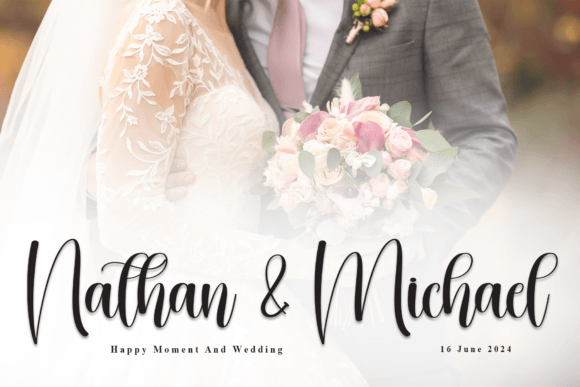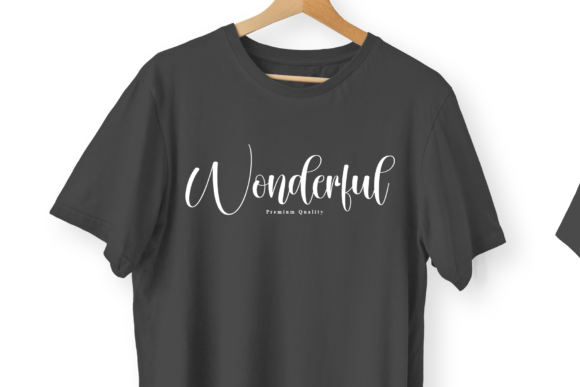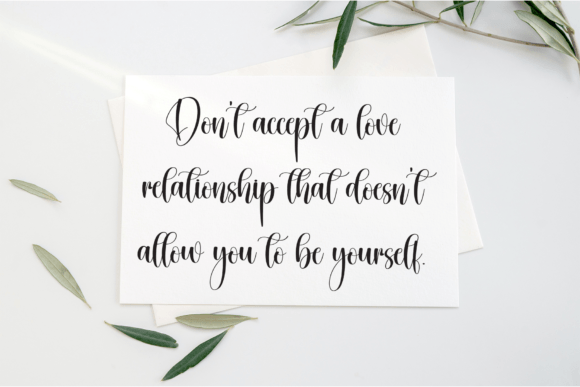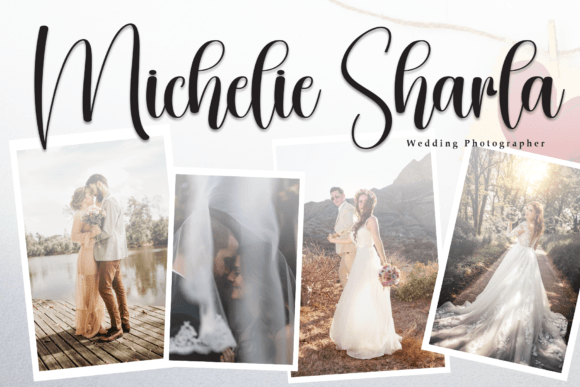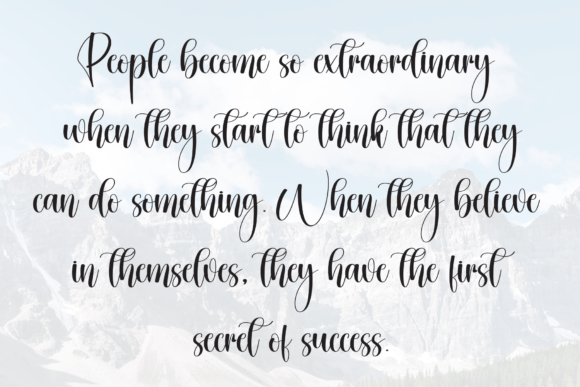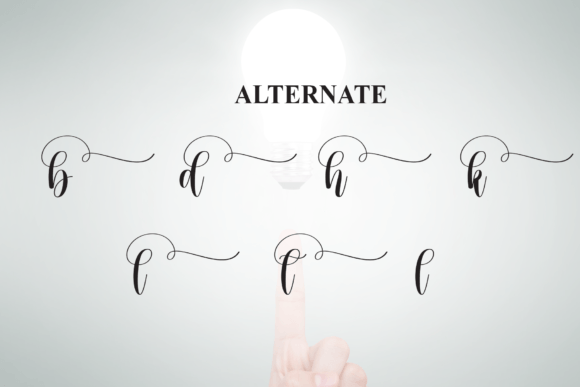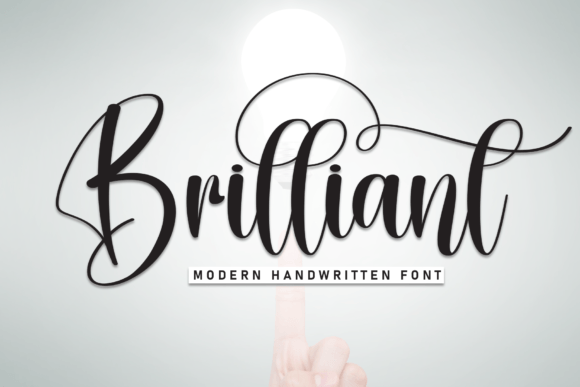
Discover the Charm of Brilliant Font: A Sweet and Friendly Handwritten Delight
Are you on the hunt for a font that adds a touch of warmth and personality to your designs? Look no further than Brilliant Font, a sweet and friendly handwritten font that’s sure to capture your heart. With its natural and unique style, Brilliant Font is incredibly versatile and can be used in a wide range of designs, from rustic and vintage to modern and playful.
Handwritten fonts have a way of adding a personal touch to any design. They evoke a sense of warmth, comfort, and approachability, making them perfect for designs that aim to connect with the audience on a more personal level. Brilliant Font is no exception, with its fluid and organic strokes that give it a distinctly human feel.
What Makes Brilliant Font So Special?
So, what sets Brilliant Font apart from other handwritten fonts out there? Here are just a few of its standout features:
• Natural and Unique Style: Brilliant Font has a one-of-a-kind look that’s both natural and effortless. Its unique style makes it perfect for designs that need a touch of personality and whimsy.
• Versatility: Whether you’re designing a rustic wedding invitation, a playful children’s book, or a modern brand logo, Brilliant Font is up to the task. Its versatility knows no bounds, and the only limit is your imagination!
• Easy to Read: Despite its whimsical nature, Brilliant Font is surprisingly easy to read, making it perfect for body text and longer blocks of content.
So, what can you create with Brilliant Font? The possibilities are endless! Here are a few ideas to get you started:
• Wedding Invitations: Add a touch of romance and whimsy to your wedding invitations with Brilliant Font. Its elegant and flowing strokes make it perfect for formal and informal wedding designs alike.
• Children’s Books: Brilliant Font is a natural fit for children’s books, with its playful and imaginative vibe. Use it to create engaging and interactive stories that kids will love.
• Branding and Logos: Need a logo that stands out from the crowd? Brilliant Font is a great choice, with its unique and memorable style. Use it to create a brand identity that’s both modern and timeless.
• Stationery and Crafts: Brilliant Font is perfect for crafty projects like DIY stationery, journals, and planners. Add a personal touch to your crafts with this beautiful handwritten font.
Tips for Using Brilliant Font
Here are a few tips to help you get the most out of Brilliant Font:
• Experiment with Colors: Brilliant Font looks great in a variety of colors, from bright and bold to soft and pastel. Experiment with different color combinations to find the perfect fit for your design.
• Play with Pairings: Brilliant Font pairs well with a range of other fonts, from modern sans-serifs to elegant scripts. Experiment with different pairings to find the perfect match for your design.
• Don’t Be Afraid to Get Creative: Brilliant Font is a versatile font that can be used in a wide range of designs. Don’t be afraid to get creative and try new things – the only limit is your imagination!
In conclusion, Brilliant Font is a sweet and friendly handwritten font that’s perfect for designers and crafters looking to add a touch of personality to their designs. With its natural and unique style, versatility, and endless design possibilities, Brilliant Font is sure to become a favorite in your font collection. So why wait? Download Brilliant Font today and start creating something truly special!